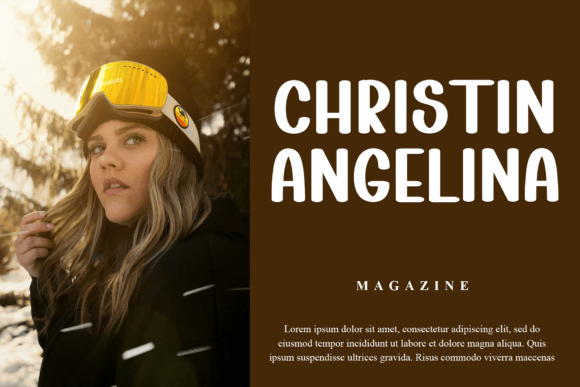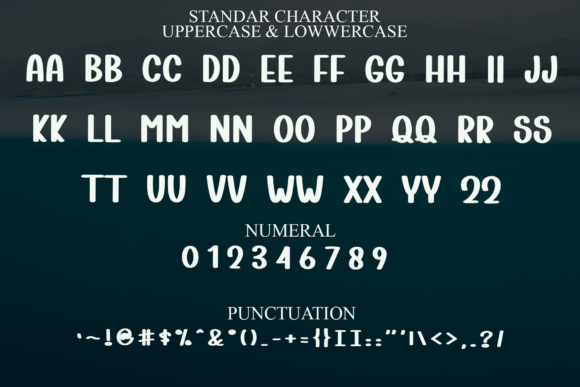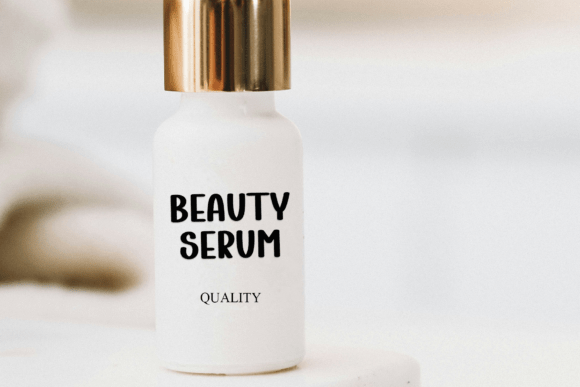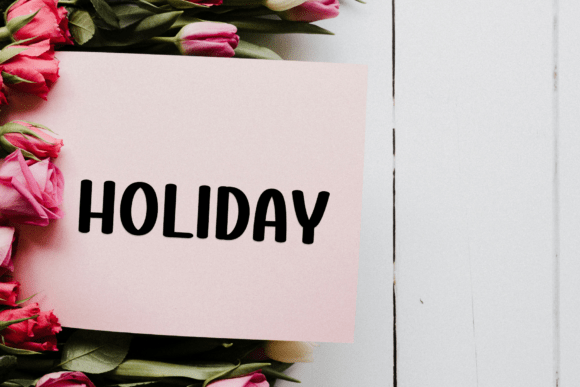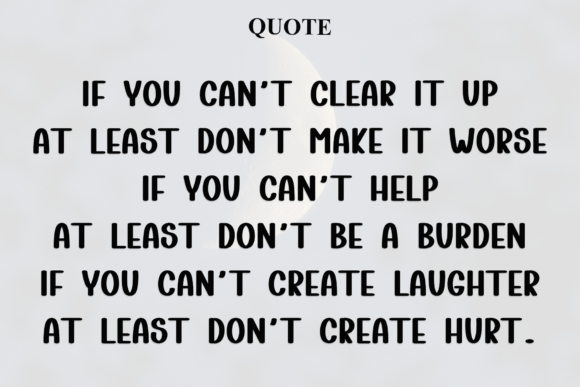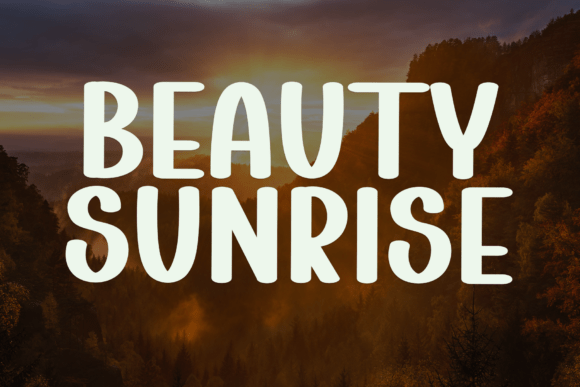
Introduction to Elegant Sunrise Font
As a designer, you know that finding the right font can be the difference between a project that’s just okay, and one that truly shines. Remember that moment when you stumbled upon the perfect font for a client’s logo, and everything just clicked? That’s what we’re about to share with you – a font that’s going to take your creative projects to the next level.
Meet the Elegant Sunrise Font, a bold display font designed to command attention and make a statement. Its strong lines, striking shapes, and impactful presence are perfect for headlines, posters, branding, and any design that needs to stand out from the crowd.
Key Features of Elegant Sunrise Font
- Elegant and sophisticated design, perfect for creative projects that require a touch of elegance.
Honest Review: Elegant Sunrise Font
I recently stumbled upon the Elegant Sunrise Font, and I must say it’s been a game-changer for my creative project. The high-quality design and elegant feel make it a perfect addition to any visual project.
- ✨ Elegant and sophisticated design that elevates any project
One of the standout features of this font is its versatility. I’ve used it for everything from blog headers to social media graphics, and it always looks amazing. The font is also highly customizable, which is a major plus for designers who value precision.
However, I did encounter a few limitations. ⚠️ The font can be a bit too ornate for some projects, and it may not be the best choice for simple, straightforward designs. Additionally, the font doesn’t come with a lot of character variations, which can be a drawback for some designers.
Overall, I’m really impressed with the Elegant Sunrise Font. It’s a high-quality design resource that’s perfect for any creative project. With a little creativity and experimentation, I’m confident that you’ll find a way to make this font shine.
Tips for Getting the Most Out of Elegant Sunrise Font
To get the most out of the Elegant Sunrise Font, use it in conjunction with other design resources like transparent backgrounds, high-quality images, and creative graphics. Experiment with different font sizes, colors, and styles to create a unique look that suits your design project. Don’t be afraid to combine the font with other design elements to add depth and visual interest.
Common Use Cases for Elegant Sunrise Font
The Elegant Sunrise Font is a versatile design resource that can be used in a variety of creative projects, including:
- Brand logos and identity design
- Photography and image captions